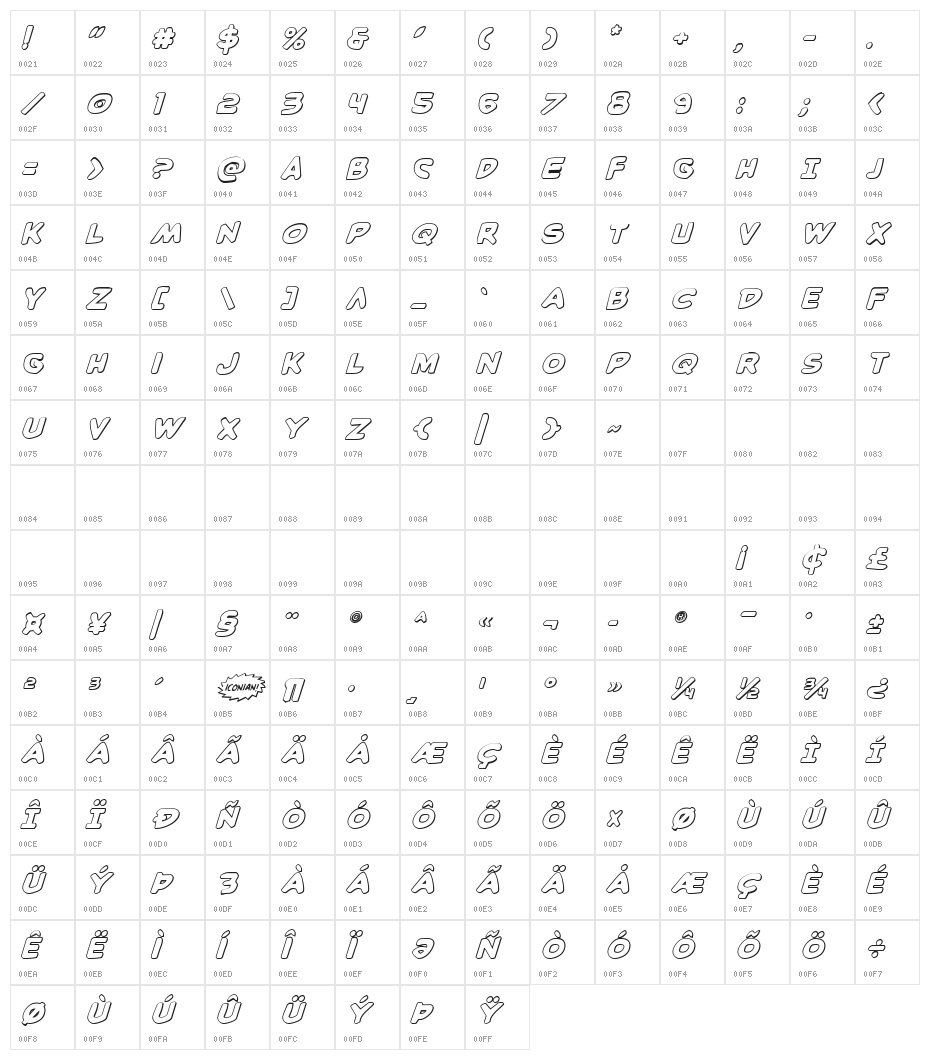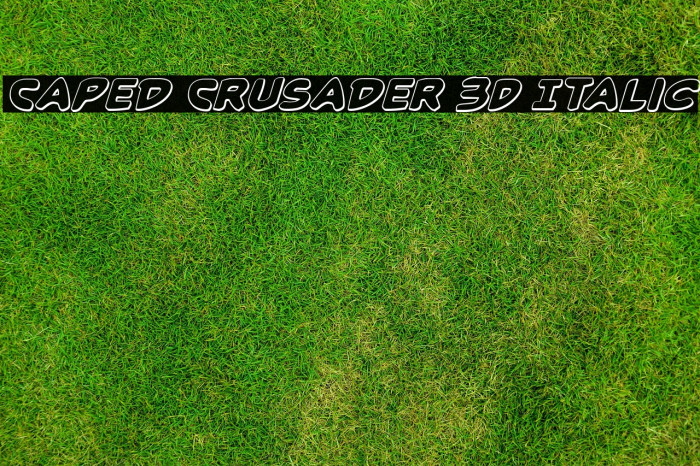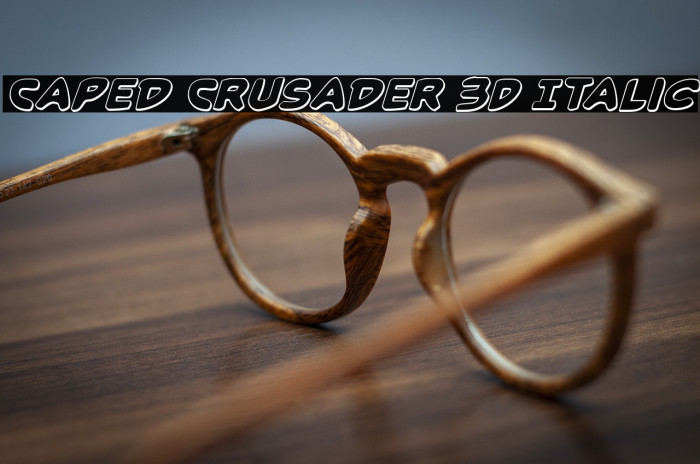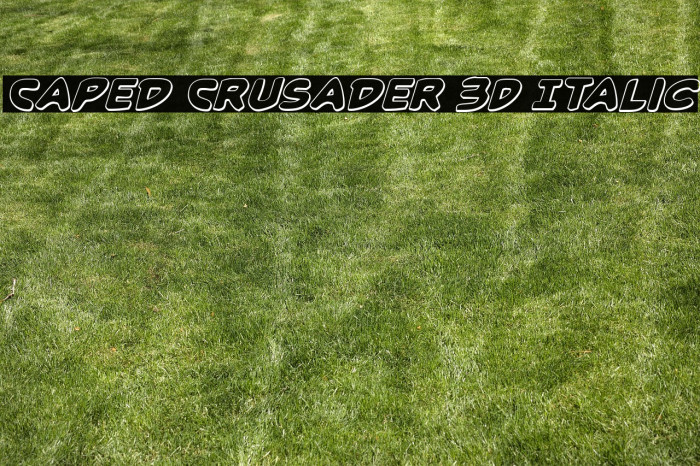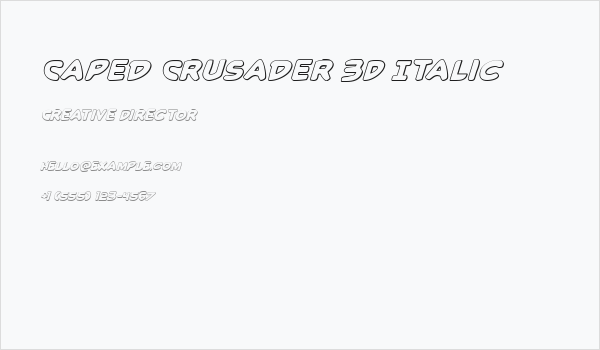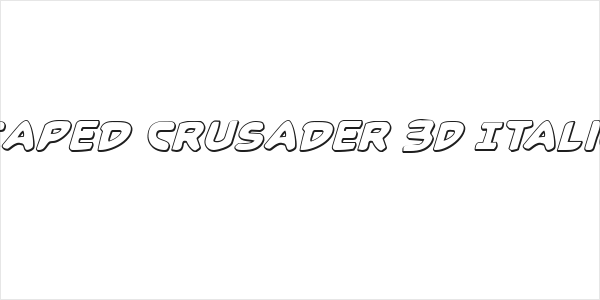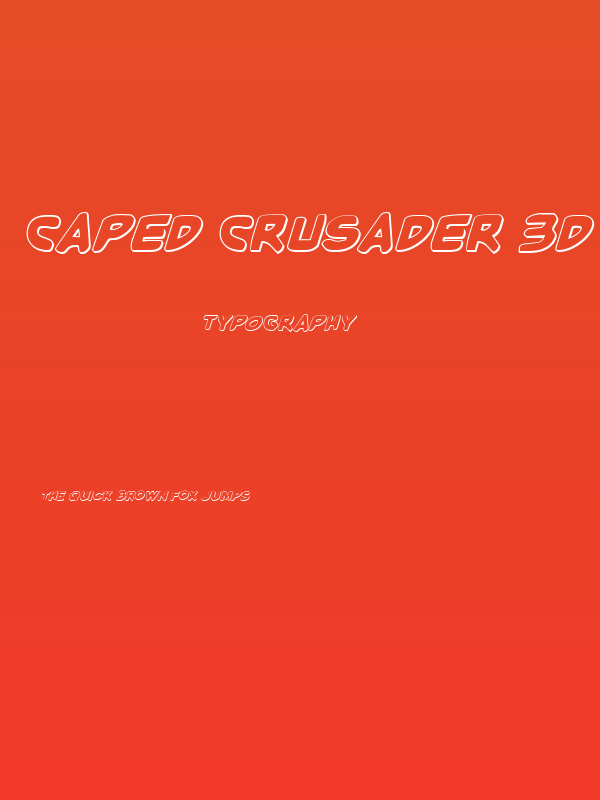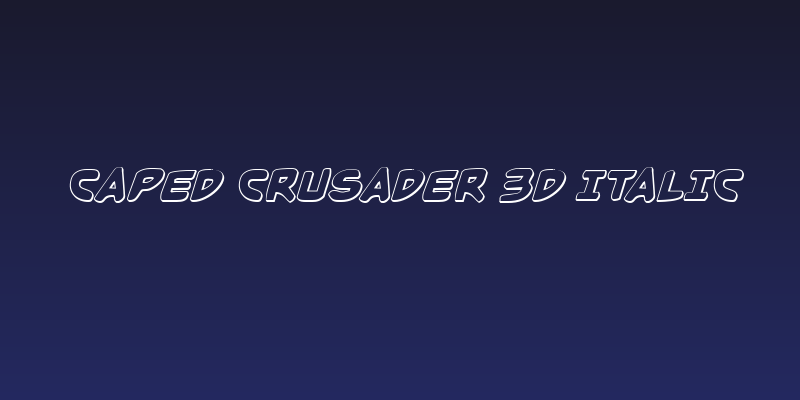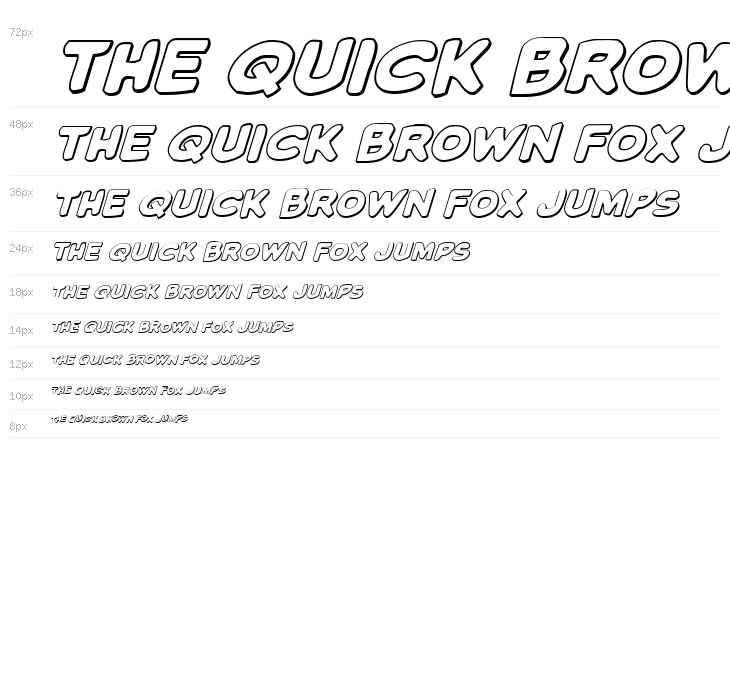
Caped Crusader 3D Italic Font
Caped Crusader 3D Italic Description
This font features a bold, three-dimensional style with a playful and dynamic appearance. The letters are outlined with a thick black border, giving them a cartoonish and impactful look. The italic slant adds a sense of motion and energy, making it ideal for attention-grabbing designs. The characters are well-spaced, ensuring readability while maintaining a cohesive visual flow. The numbers and special characters follow the same stylistic approach, ensuring consistency across all elements. This font is perfect for projects that require a fun and engaging aesthetic.
| Overall Style | Playful, Dynamic, Cartoonish |
| Proposed Projects | Ideal for comic book titles, children's book covers, playful branding, and eye-catching posters. |